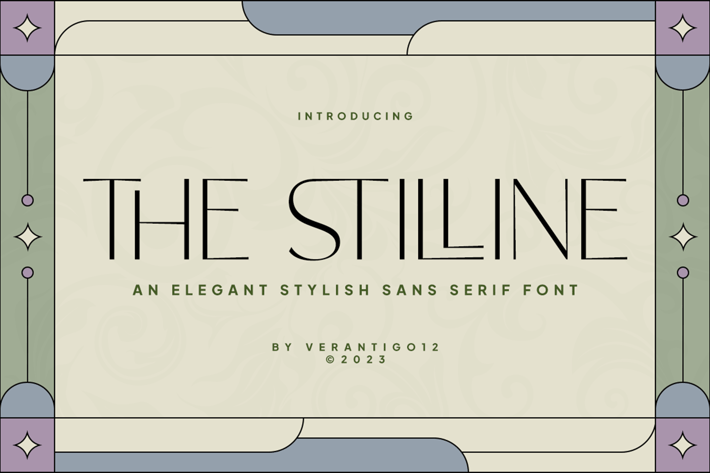
The Stilline - Sans Serif Font
The The Stilline is inspired by famous logos. It’s simple, yet classy, and was made with precision and measured.It’s perfect for logos & branding, photography, invitations, watermarks, advertisements, product designs, stationery, wedding designs, labels, product packaging, and much more!